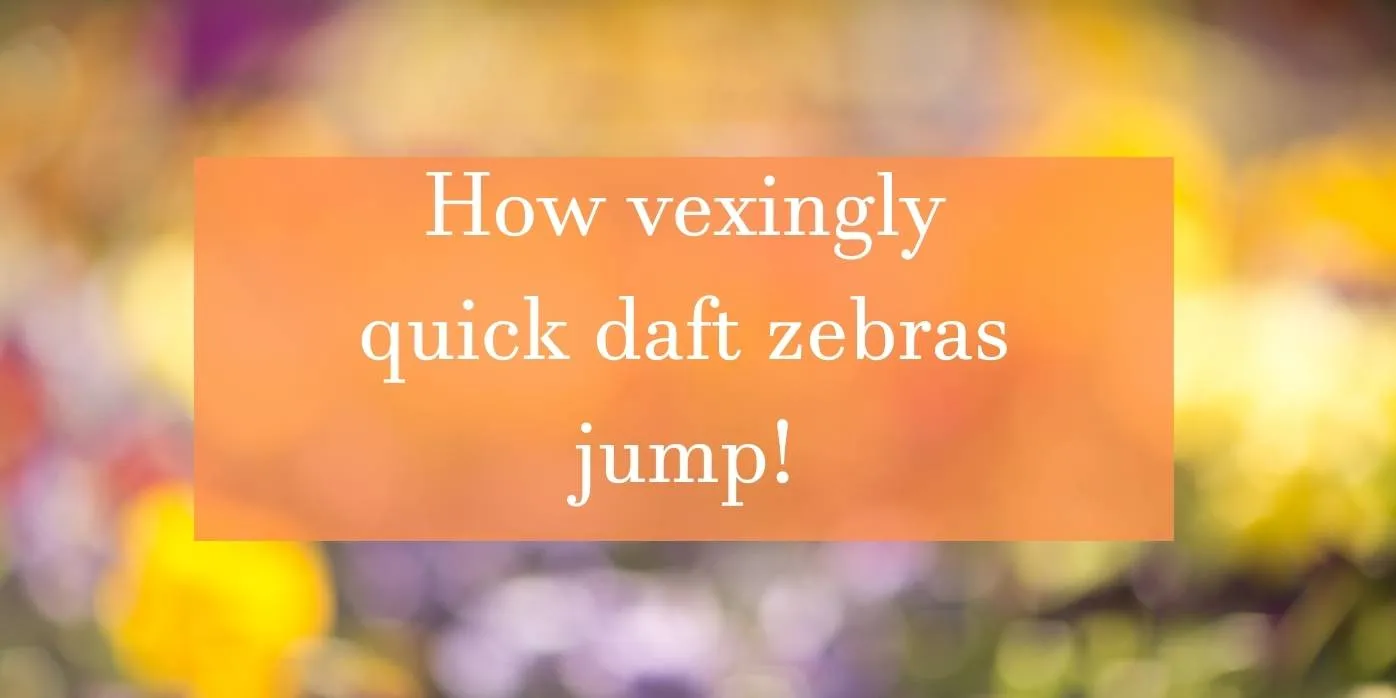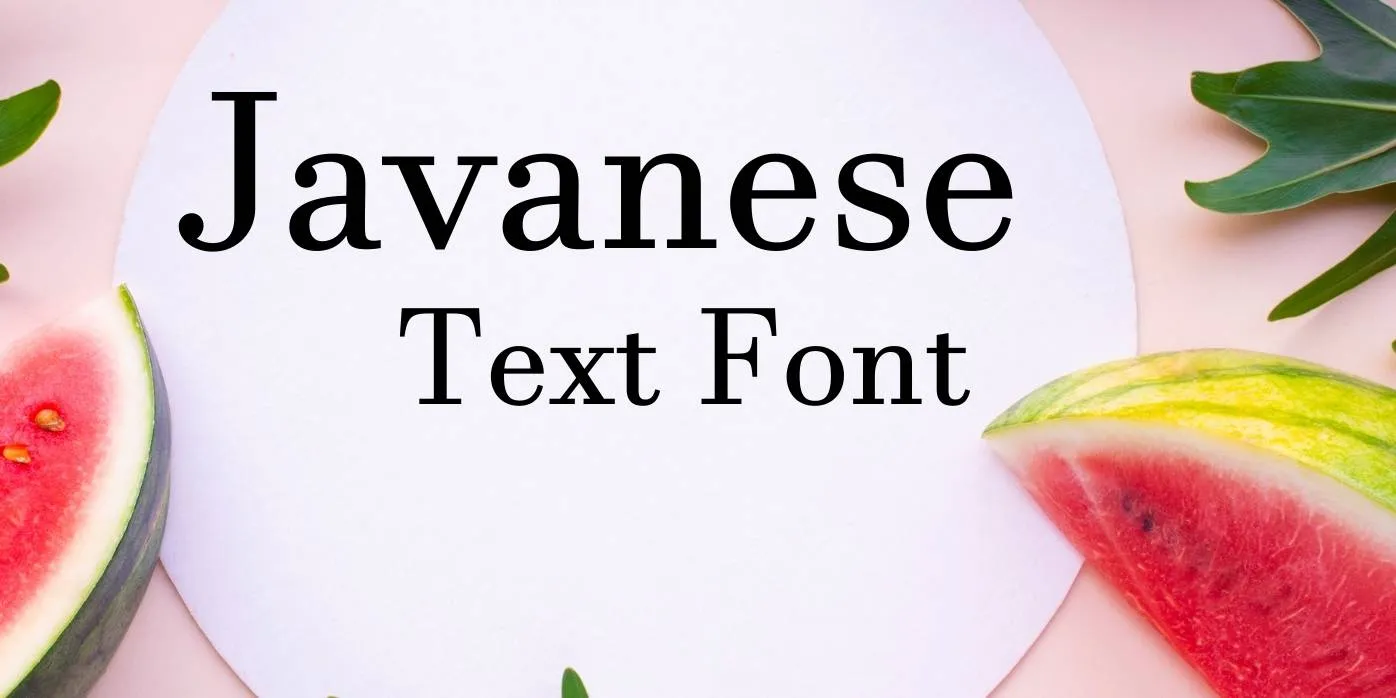
Javanese Text Font
Here, we introduce the Javanese Text Font which was developed by a very popular designer named John Hudson. It belongs to the Serif typeface. This classy Font is a stylish typeface that is perfect for headlines and titles. It has a very unique look that makes it stand out from other fonts.
This stunning typeface is best for Adobe Photoshop, Adobe Illustrator, and Canva. This cute Font was inspired by the Javanese script, which is used in Indonesia. It is known for its elegant and flowing lines. This classic typeface includes Three famous and classic weights: Light, Regular, and Bold.